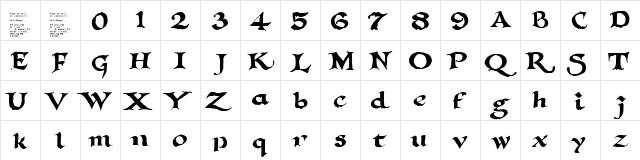
Gabriel Regular Demo lar Font Preview
Gabriel Regular Demo lar
Gabriel Regular Demo lar Font Details
Design Context for Gabriel Regular Demo Typeface
Gabriel Regular Demo is a composed and adaptable typeface that performs quietly and consistently across a wide range of design contexts.